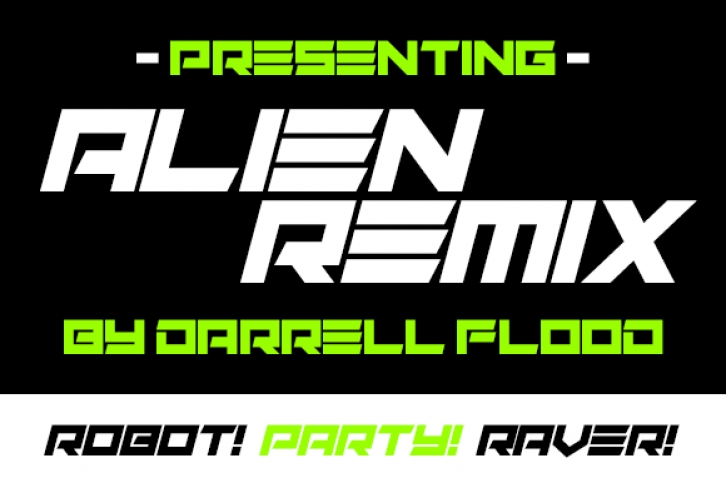
Alien Remix is a bold, sci-fi styled and squared lettered display font. It is perfect for futuristic creations, science related designs and tech presentations.